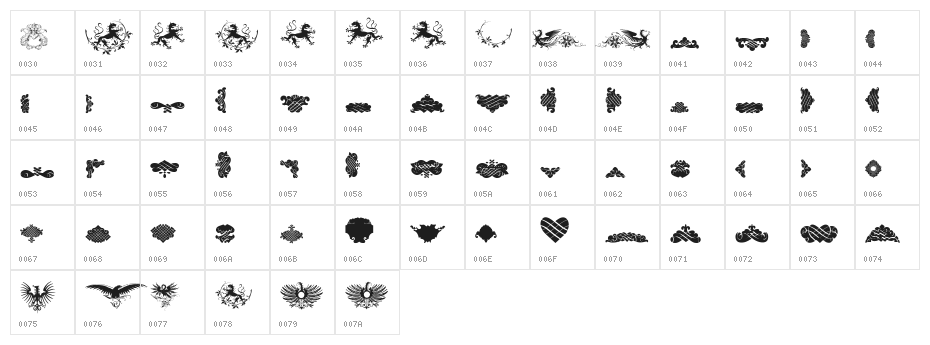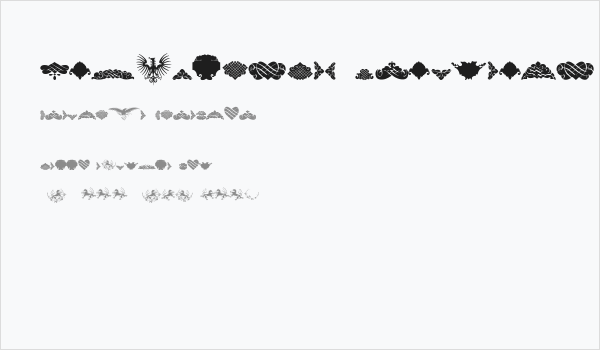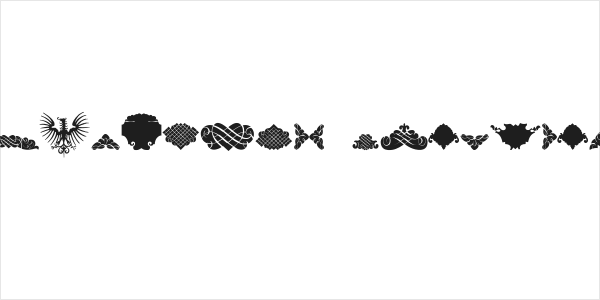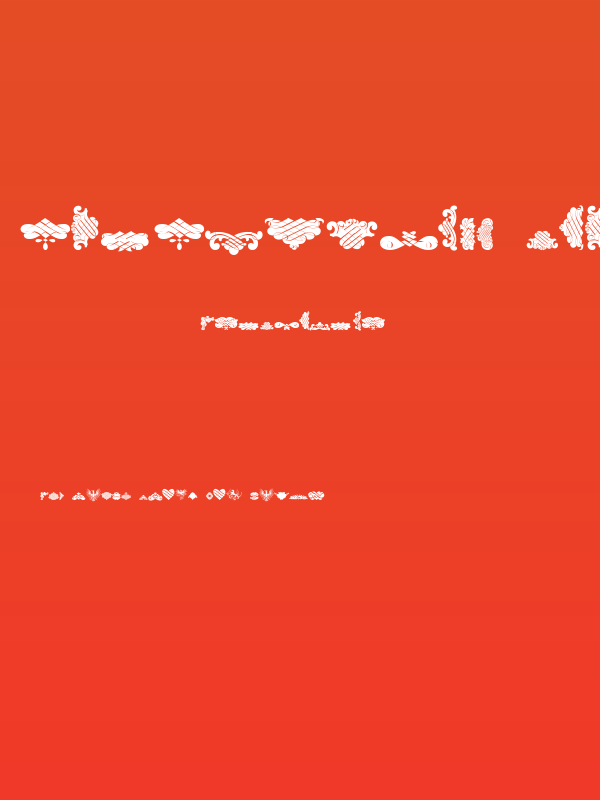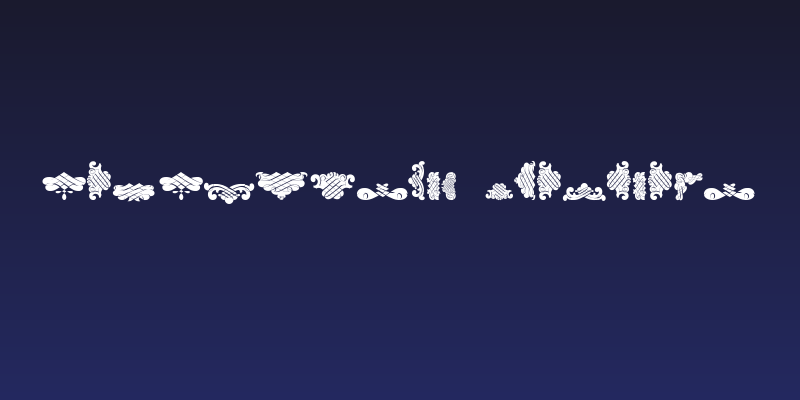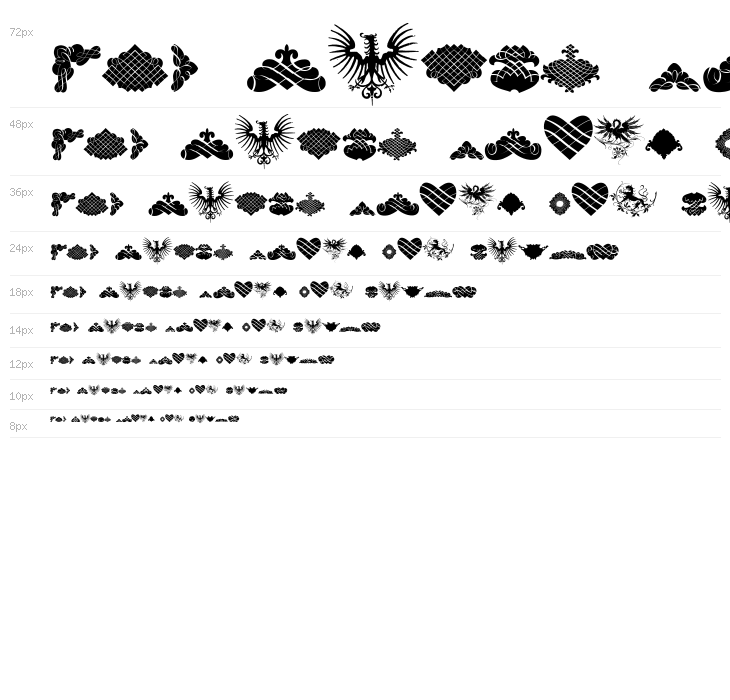
Unpublished Ornaments Font
Unpublished Ornaments Description
A collection of highly detailed, ornamental vector glyphs featuring flourishes, filigree, shields, hearts, mythical creatures, and heraldic motifs. The designs are intricate, bold, and decorative, suitable for embellishment rather than text communication.
| Overall Style | Vintage, Decorative, Heraldic |
| Use Case | Ornaments, Borders, Emblems, Decorative accents |
| Proposed Projects | Wedding invitations, certificates, packaging, branding, book covers, decorative borders, heraldic designs. |